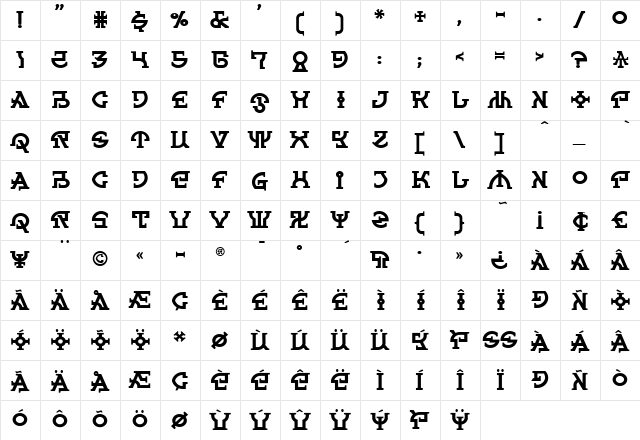
Spanner Regular Font Preview
Spanner Regular
Spanner Regular Font Details
Design Context for Spanner Typeface
Spanner is a composed and adaptable typeface that performs quietly and consistently across a wide range of design contexts.